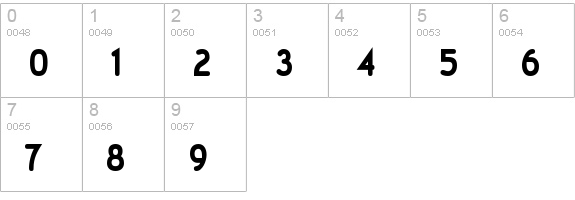
Wevli Condensed Bold Font Details
Wevli Condensed Bold is a strong, high-contrast, condensed-width variant in the Wevli typeface family \xE2\x80\x94 well suited to headlines, attention-grabbing titles, and strong calls-to-action.
Introducing Wevli Condensed Bold font, a dynamic and versatile typeface that exudes modernity and sophistication. With its bold and streamlined design, Wevli Condensed Bold is perfect for making a bold statement in headlines, titles, and branding materials. The condensed form of this font adds a touch of elegance and professionalism to any design project. What makes Wevli Condensed Bold font even more appealing is that it is available for free download at FontsMarket.com. Now you can enhance your projects with this sleek and impactful typeface without any cost. Whether you are designing posters, logos, websites, or any other creative work, Wevli Condensed Bold font is sure to elevate your design aesthetic and make a lasting impression. Download Wevli Condensed Bold font today and unleash your creativity with this visually striking and eye-catching typeface.